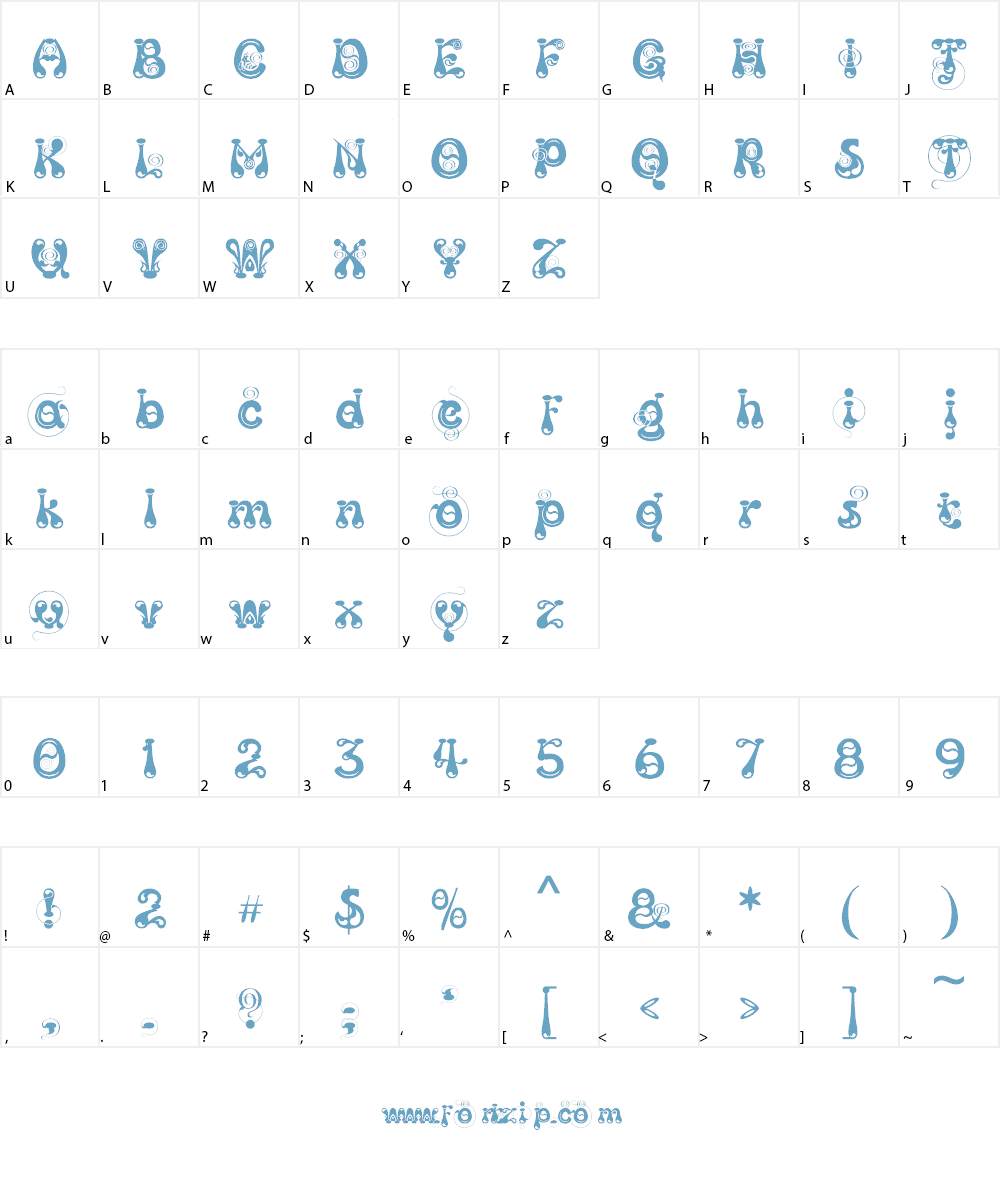
Well, I've been growing insectivorous plants for years... I think something has finally sunk in and demanded to be a font - there may be others, you have been warned! (they're spooky these plants, they lurk and pew).